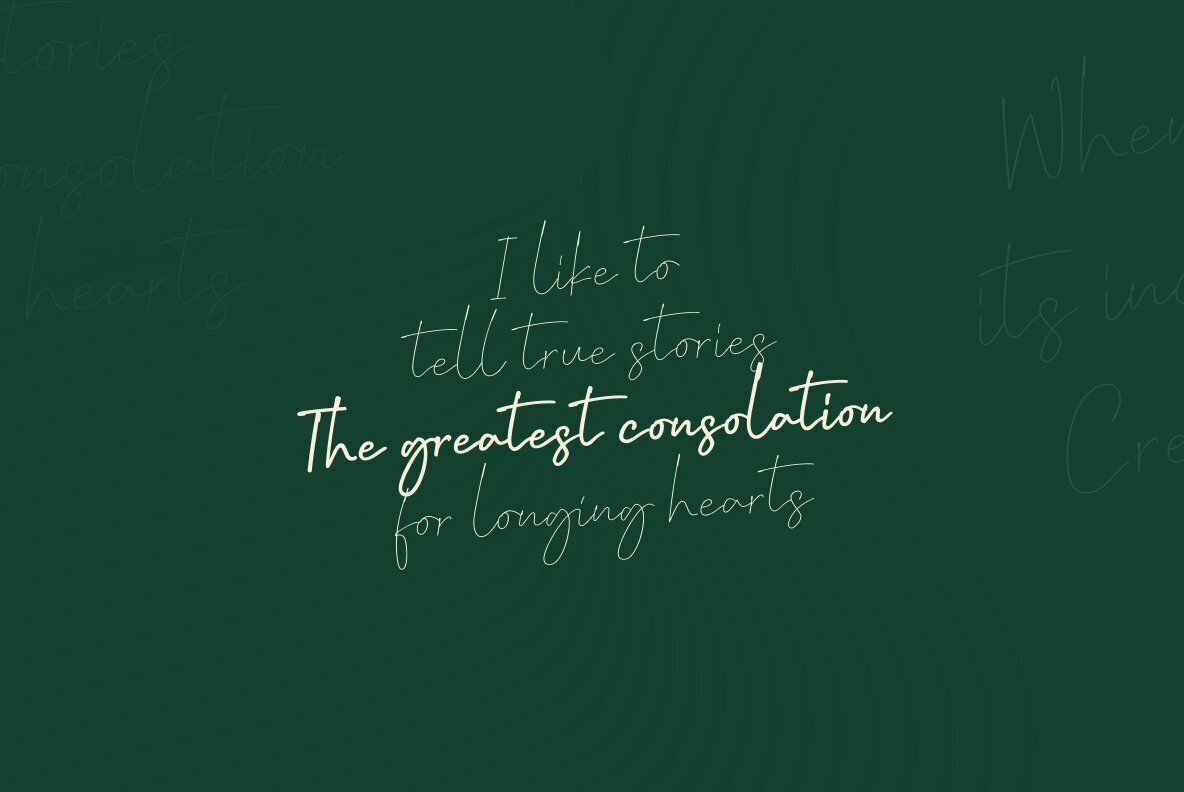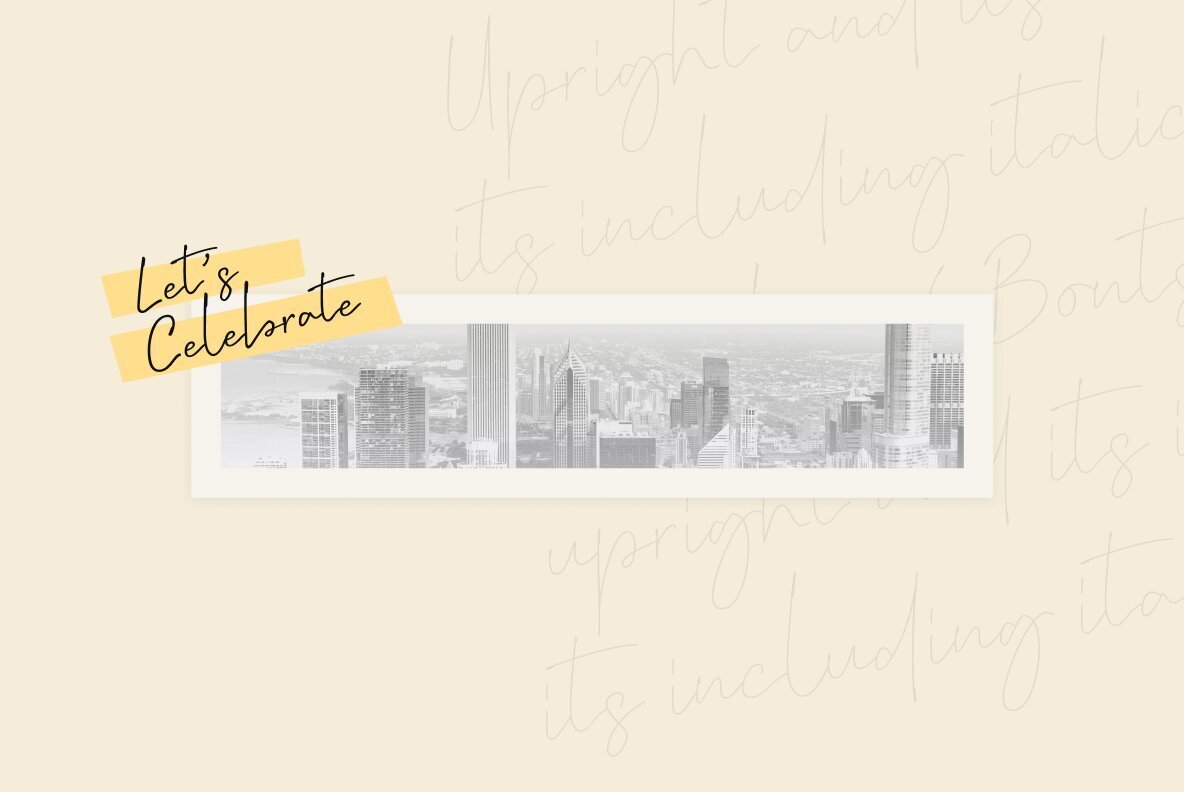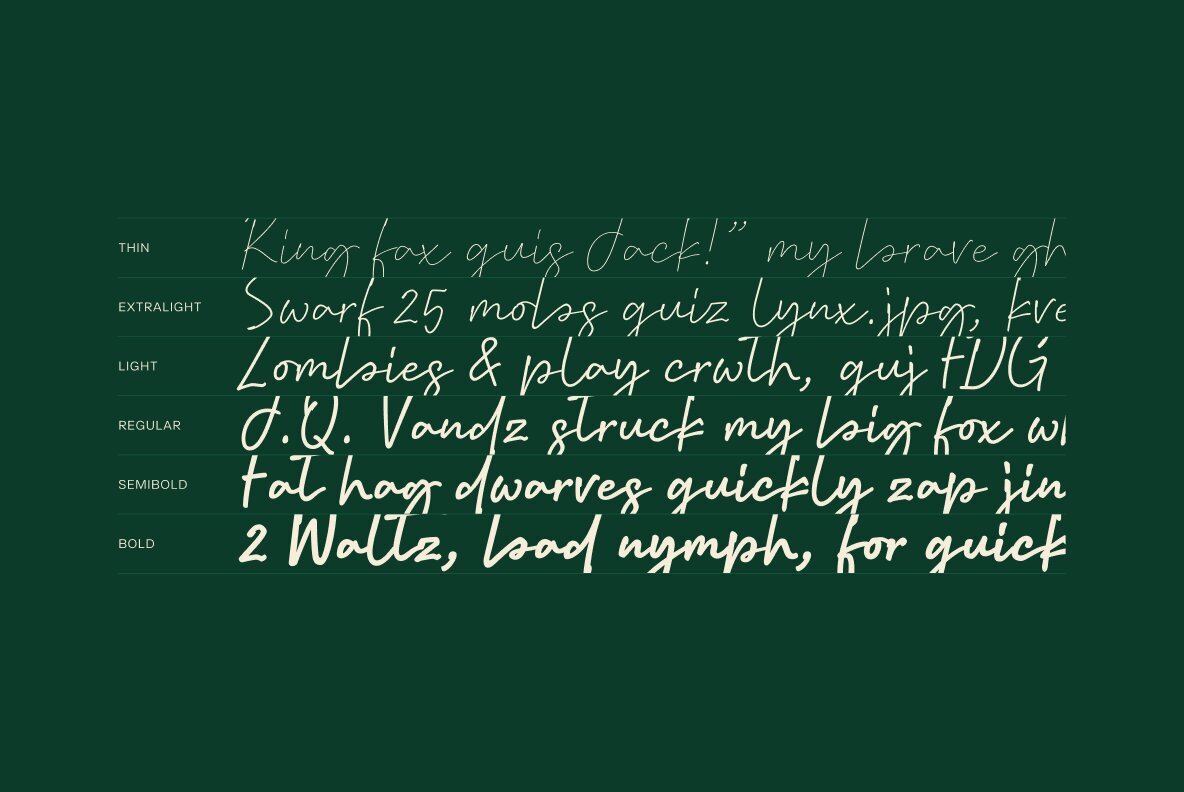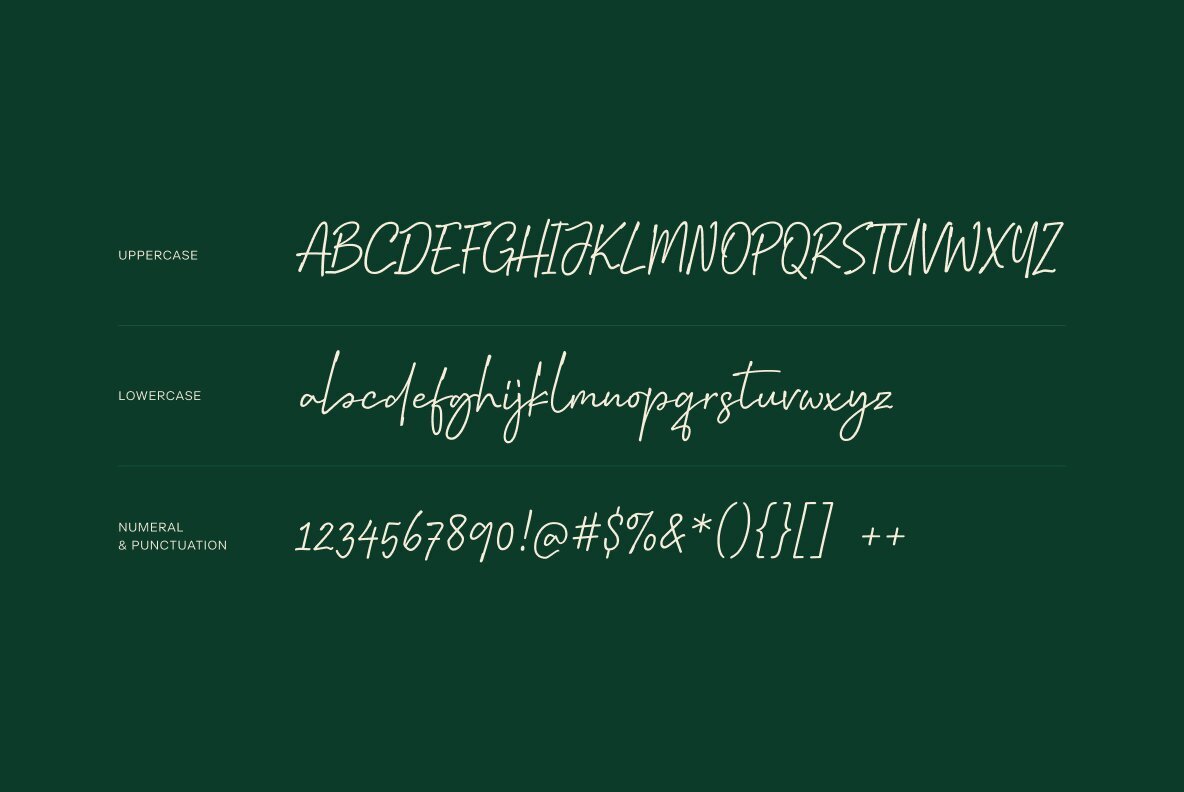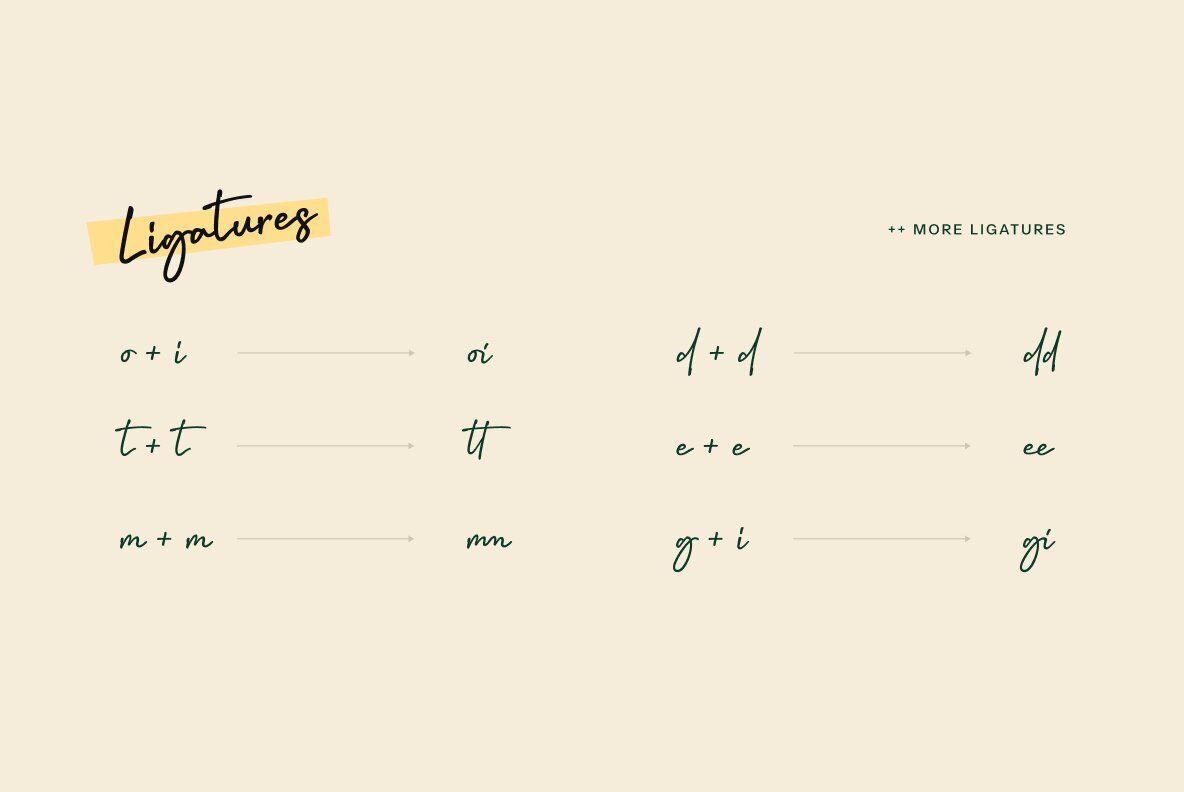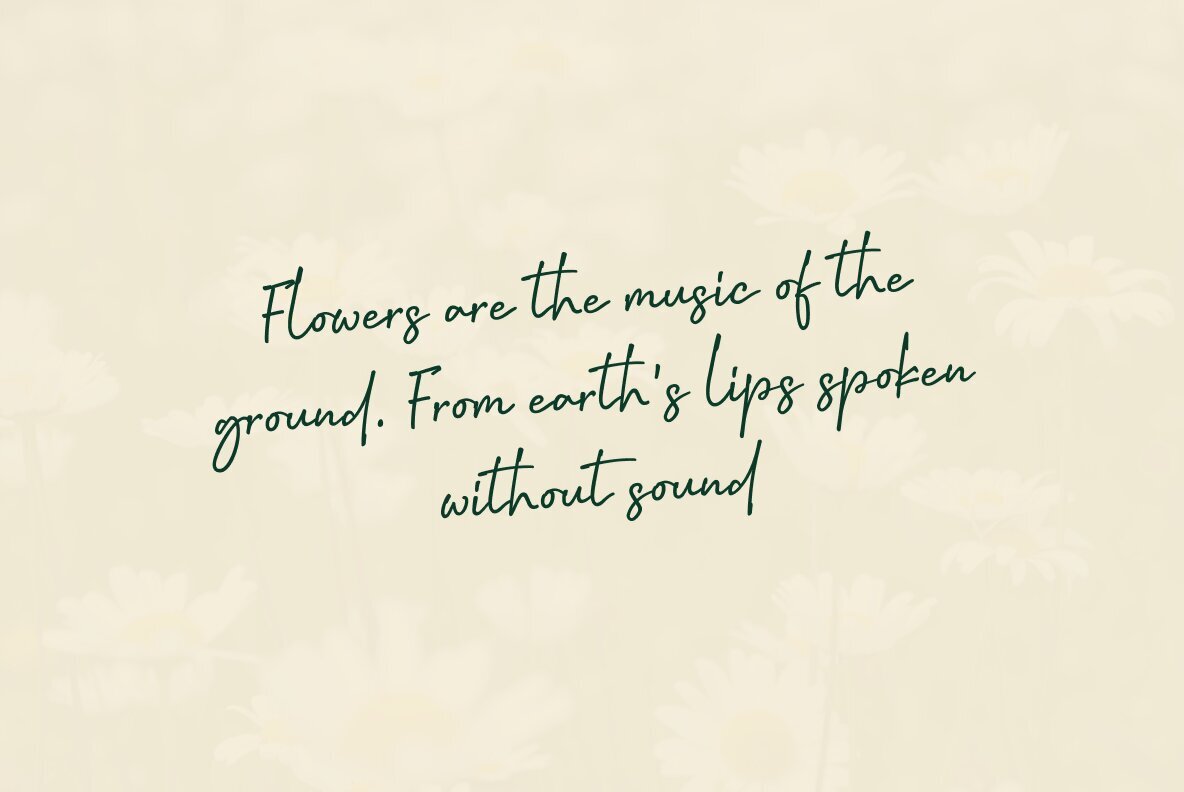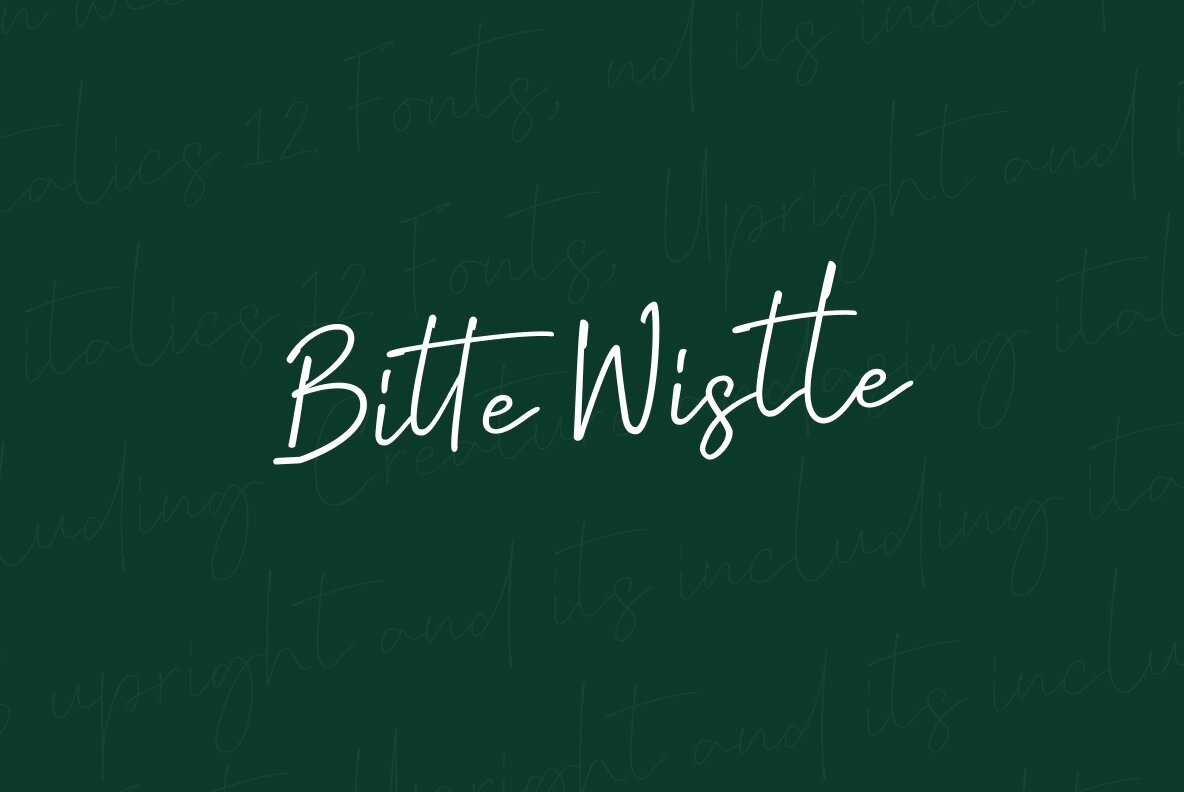
Coldia Font
Introducing Coldia, a captivating font family boasting six exquisite weights: Thin, ExtraLight, Light, Regular, SemiBold, and Bold. With its delicate nuances and signature-style handwriting, Coldia exudes an aura of sophistication and untamed elegance.
Each weight of Coldia reflects a spectrum of handwritten strokes, ranging from the thint to the bold, all while maintaining a consistent allure and grace. Its versatility extends to multilingual support.
Ideal for a myriad of applications, from eye-catching posters to memorable business cards, Coldia's charming demeanor adds a lovely touch to any design project. Its wild yet refined nature makes it perfect for branding endeavors, invoking a sense of authenticity and personal connection. Whether crafting invitations, designing scripts, or enhancing branding materials, Coldia weaves a beautiful, romantic narrative through flowing curves.